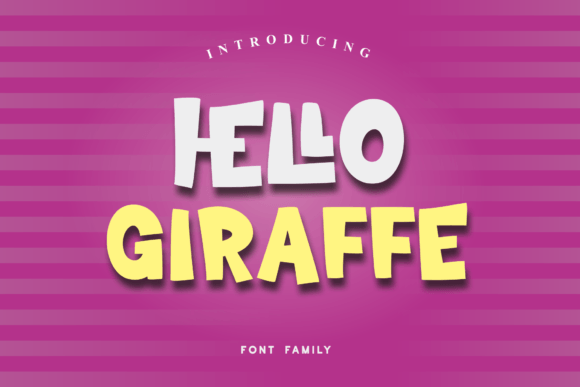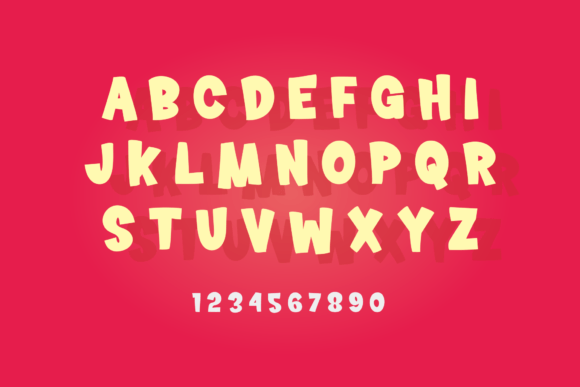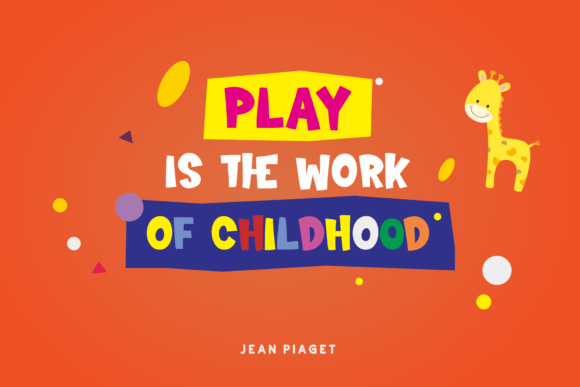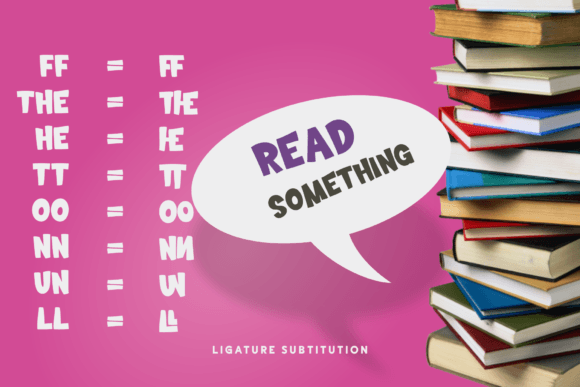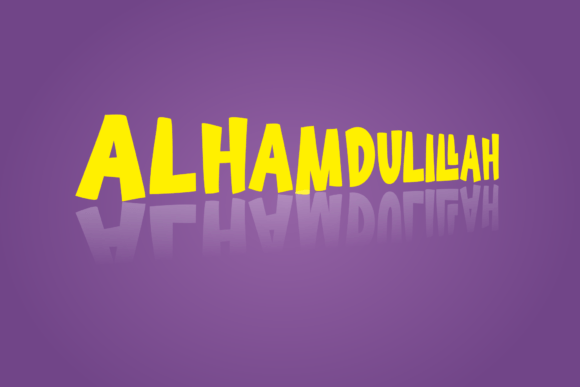
Step into the World of Whimsy with Hello Giraffe Font
Do you remember the thrill of holding a favorite comic book as a child, the vibrant colors and playful lettering drawing you into a world of adventure and fantasy? For many of us, those carefree moments sparked a love of creativity and design that has stayed with us to this day. Now, designers can tap into that same sense of whimsy with the Hello Giraffe Font.
This charming sans-serif font is inspired by the playful lettering found in comics, with a fun and lighthearted character that’s perfect for bringing non-serious concepts to life. Whether you’re designing a children’s book, creating a comic strip, or simply want to add a touch of personality to your text, the Hello Giraffe Font is a valuable tool in your design arsenal.
Hello Giraffe Font Key Features
- Font Family: Hello Giraffe Font is a unique, hand-drawn sans-serif font family.
- Character Set: Includes a wide range of characters, including uppercase and lowercase letters, numbers, and punctuation marks.
- Unique Characteristics: Features a distinctive, playful design with varying line widths and a mix of rounded and pointed shapes.
- Font Styles: Includes 3 font styles: Regular, Bold, and Italic, allowing for a range of design possibilities.
Hello Giraffe Font Review
Hello Giraffe Font is a delightful, whimsical font that shines with its unique charm. ✨ Its quirky lines and playful feel make it perfect for adding a touch of fun and personality to your design projects. ✨ The font’s rounded edges and soft curves create a friendly atmosphere, making it ideal for children’s books, greeting cards, and other playful applications.
However, Hello Giraffe Font also has some limitations. ⚠️ One of the main concerns is its readability, particularly at smaller font sizes. The font’s irregularities can make it challenging to read, especially for those with visual impairments. Additionally, the font’s complexity might make it difficult to pair with other fonts, which could limit its versatility.
Here are some key points to consider:
- Quirky and playful design
- Perfect for children’s books, greeting cards, and other playful applications
- Limited readability at smaller font sizes
- Potential difficulty pairing with other fonts
Overall, Hello Giraffe Font is a fun and charming font that’s perfect for adding a touch of personality to your design projects. While it may have some limitations, its unique charm and playful feel make it a great choice for the right applications.
Tip: Use Hello Giraffe Font for playful and whimsical designs, such as invitations and social media graphics.
Tip: Use Hello Giraffe Font for creative and artistic designs, such as posters and digital art.
Tip: Use Hello Giraffe Font for presentations and documents that require a fun and playful tone.
Hello Giraffe Font is ideal for:
- Playful and whimsical designs.
- Creative and artistic projects.
- Invitations and social media graphics.
- Presentations and documents with a fun tone.
Is the Hello Giraffe Font optimized for digital use?
Yes, the Hello Giraffe Font is optimized for digital use and is suitable for use in a variety of digital applications, including web design, mobile apps, and e-books. The font has been carefully crafted to ensure it renders well at a range of font sizes and resolutions.